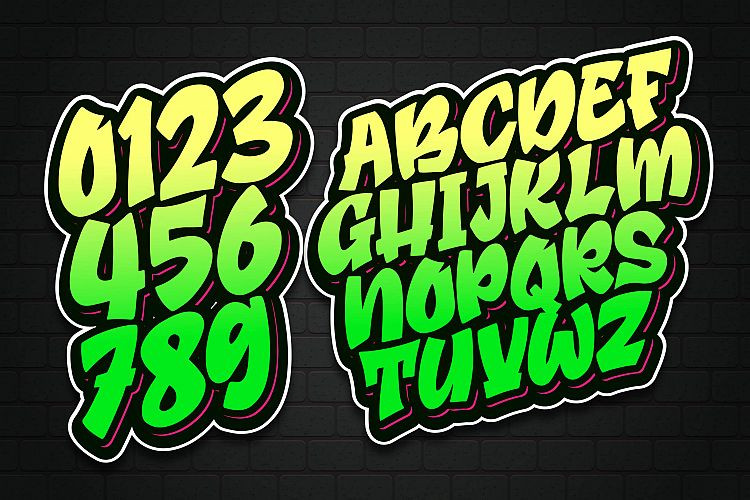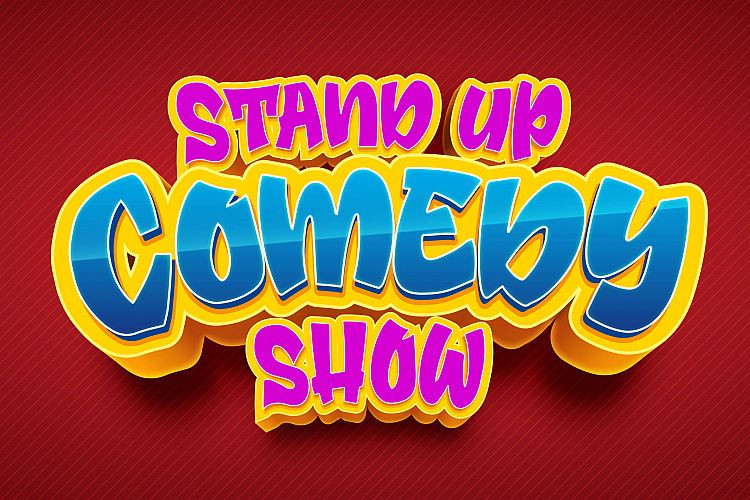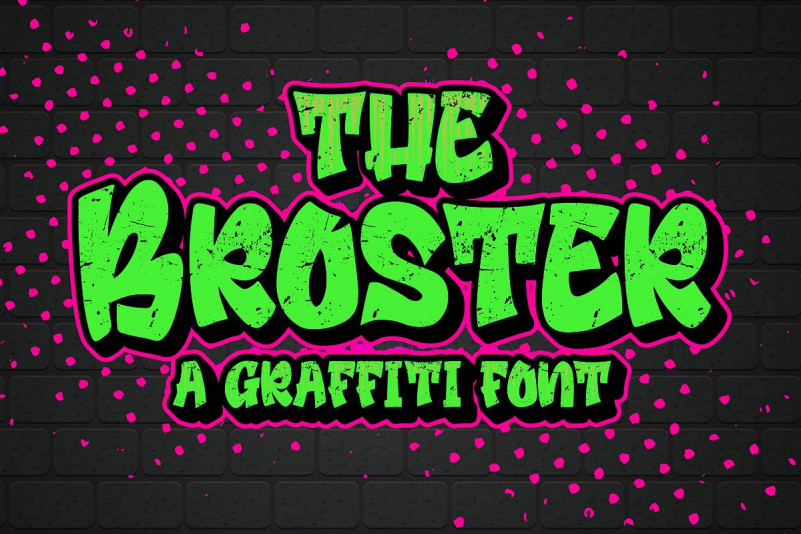
Broster Graffiti Font
Introducing of our new product the name is Broster a Graffiti Font. Broster inspired by graffiti style this font is a fun theme very good for kids, comic, apparel, clothing, logotype and etc.